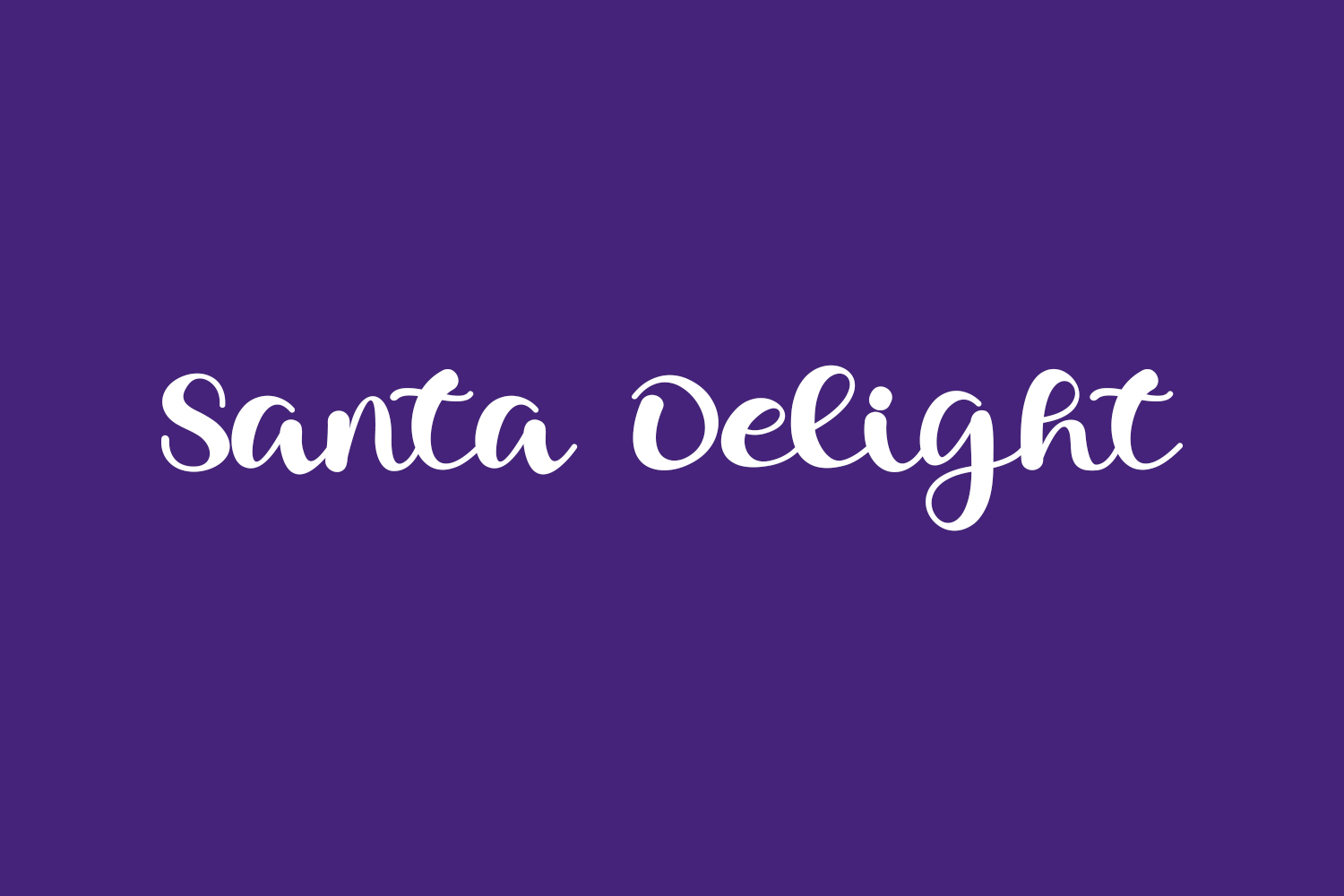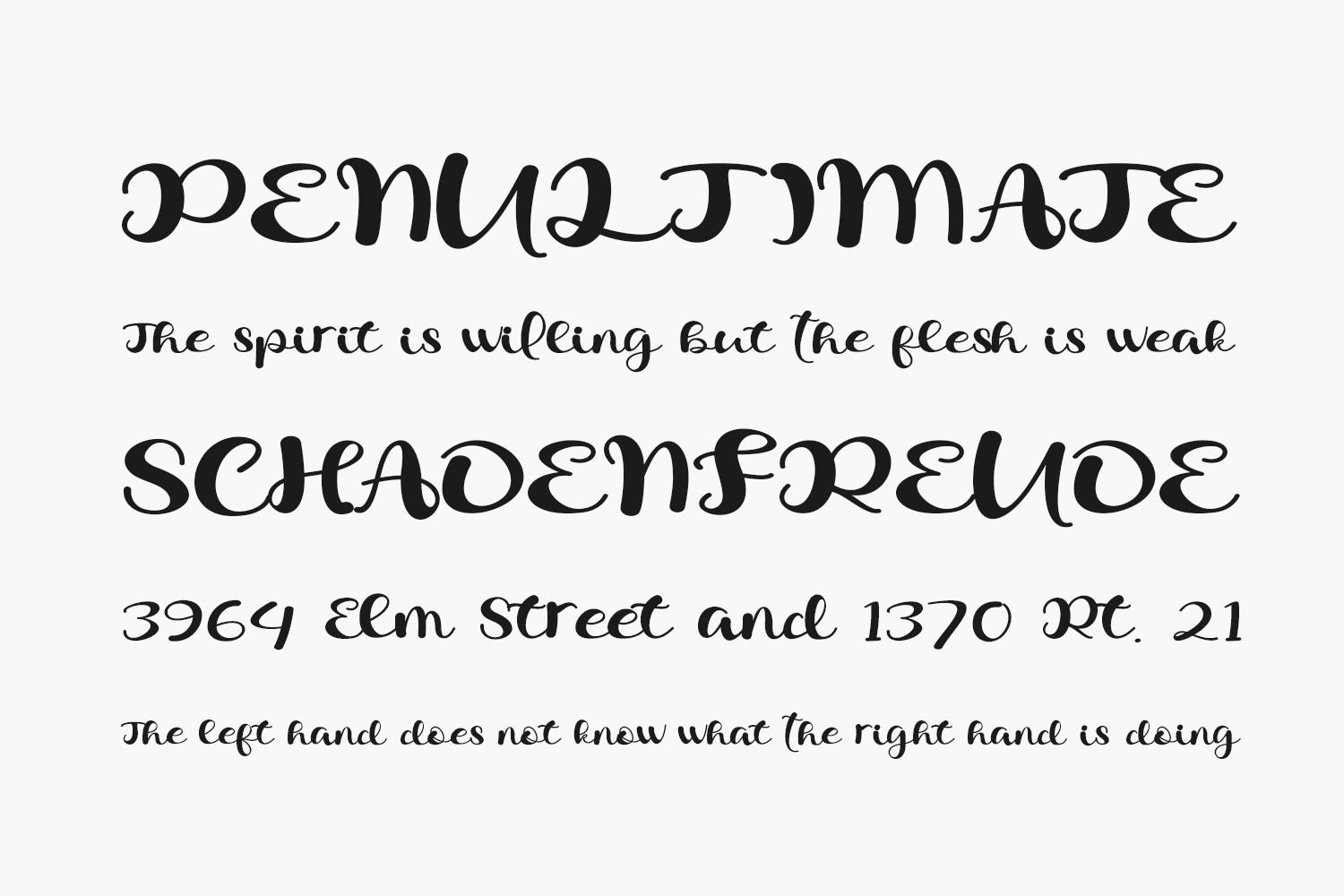
Discover the elegance of Santa Delight Free Font, a refined and delicate handwritten font. The masterfully crafted letters, with their distinct and well-balanced design, elevate this font to a level of artistic mastery. Embrace the sophistication of Santa Delight for your projects. Santa Delight Free Font was designed by Tiny Hand Letter and is free for personal use only. Please purchase the full version for commercial use.